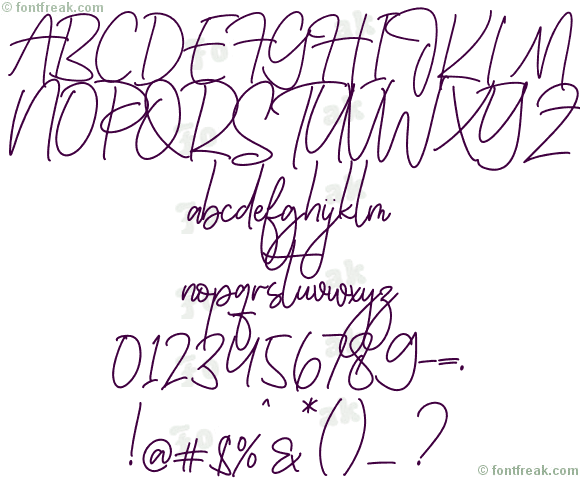
Hanibee
About Hanibee
The Hanibee font by Perspectype Studio is a beautifully crafted script typeface that embodies elegance and creativity. Released in 2021, this font is characterized by its smooth, flowing strokes that give it a handwritten quality, making it perfect for projects that require a personal touch. The stroke weight varies subtly, adding a dynamic feel to the typography, while the ample spacing between characters enhances readability and gives a light, airy appearance.
Hanibee is particularly suitable for a variety of applications, including wedding invitations, where its romantic flair can set the perfect tone for special occasions. It also works wonderfully for branding elements, such as logos for boutique shops or artisanal products, where a unique, handcrafted aesthetic is desired. Event flyers and promotional materials can benefit from the font's engaging style, drawing attention and evoking emotion. Additionally, restaurant menus can utilize Hanibee to create an inviting atmosphere, conveying a sense of warmth and hospitality.
This font is ideal for graphic designers, small business owners, and content creators looking to elevate their visual communications. Its versatility allows it to be seamlessly integrated into both digital and print media, making it an invaluable tool for various design projects.
What makes the Hanibee font stand out is its ability to combine charm and sophistication, making it a striking choice for anyone aiming to leave a lasting impression. The free availability of the Hanibee font free download opens up opportunities for creatives to experiment with its unique character without any financial barriers. Whether you're crafting an intimate invitation or a vibrant brand identity, Hanibee delivers an exceptional aesthetic that resonates with audiences.